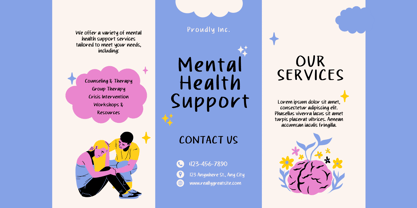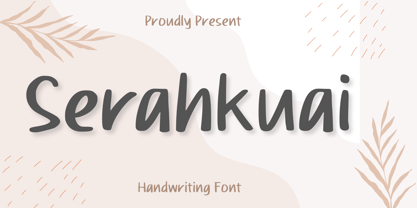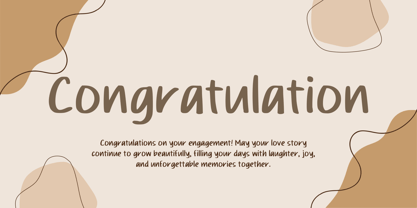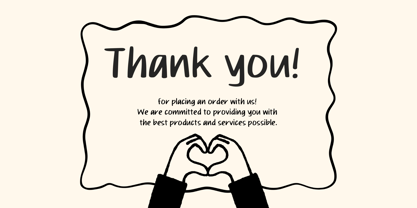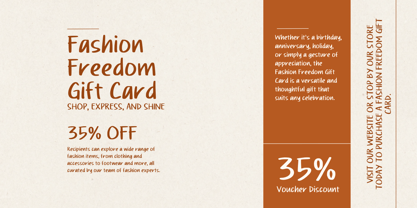
Serahkuai
by Aisyah
The Serahkuai Font Family was designed by Nur Aiysah Amalia and published by Aisyah. Serahkuai contains 1 styles. More about this family
Immerse yourself in the simplicity and elegance of this handwritten font. Beautifully created, this aesthetic typeface effortlessly merges with your design and crafting projects, lending a unique, specialized touch. Amplify your graphical presentations with this delicate and graceful font, perfect for those seeking a refined yet creative style. With its handwritten charm, it breathes life into text and creates a captivating visual harmony for your audience. Stand out from the crowd with this stylish, handcrafted font, designed with precision for typography enthusiasts.
Designers: Nur Aiysah Amalia
Foundry: Aisyah